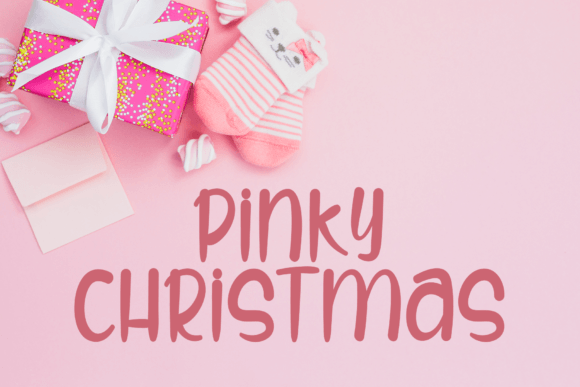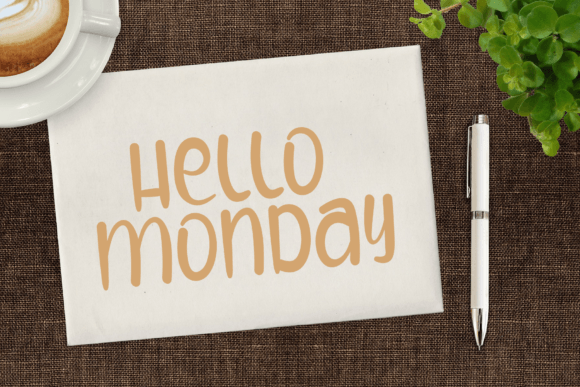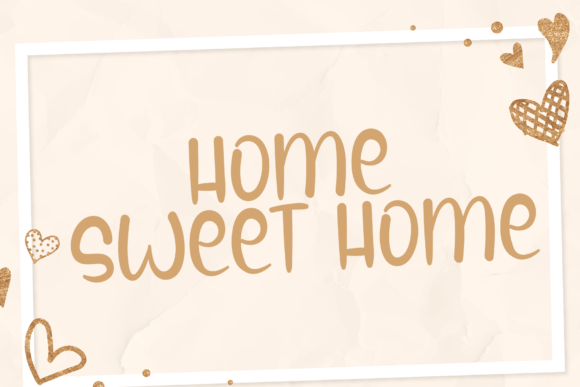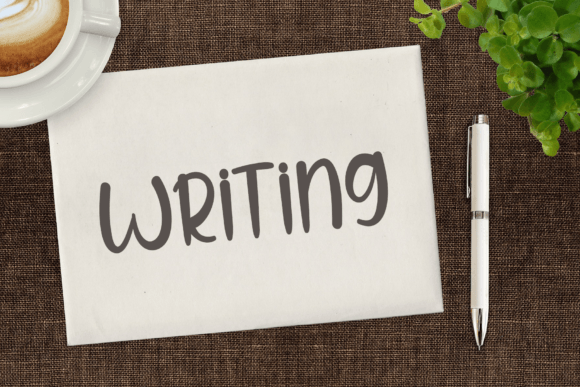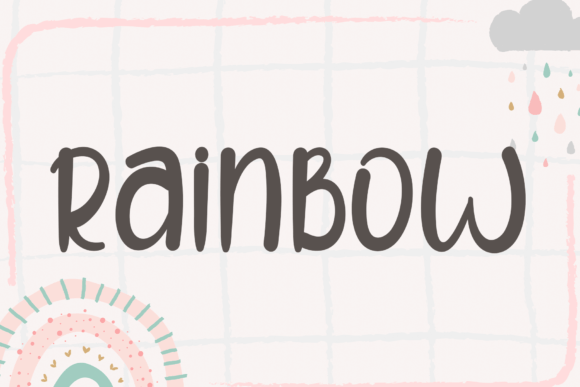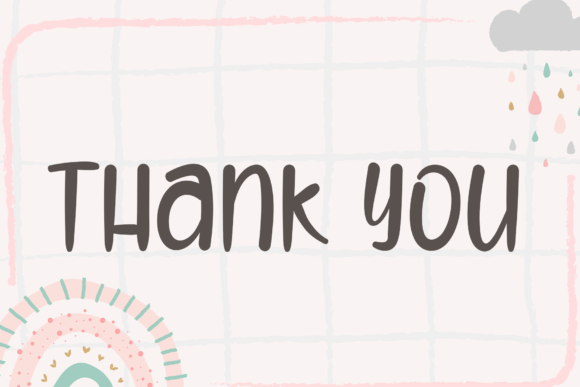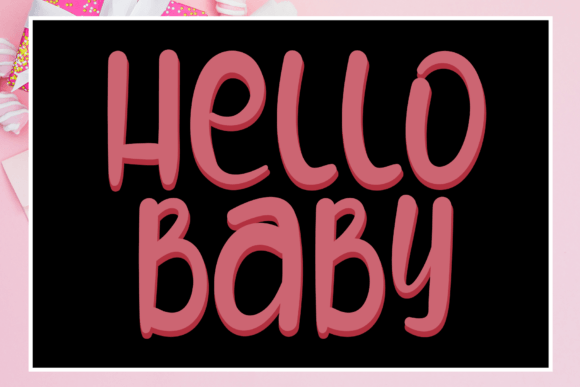
Introducing Hello Baby Font: The Sweetest Way to Celebrate New Beginnings
Are you looking for a font that captures the innocence and sweetness of newborn joy? Look no further than Hello Baby Font, a charming and endearing Script & Handwritten typeface that’s perfect for baby announcements, nursery decor, and heartfelt designs. With its gentle curves and tender letterforms, this font evokes a sense of warmth and affection that’s sure to make your projects stand out.
The Inspiration Behind Hello Baby Font
Hello Baby Font is designed to bring a touch of whimsy and love to your designs. The font’s creator was inspired by the magic of new beginnings and the joy of welcoming a new baby into the world. With Hello Baby Font, you can create beautiful and meaningful designs that celebrate the precious moments of life.
Key Features of Hello Baby Font
- Charming and endearing design: Hello Baby Font features gentle curves and tender letterforms that evoke a sense of warmth and affection.
- Script & Handwritten style: This font’s unique blend of script and handwritten elements creates a distinctive and personalized look.
- Perfect for baby-themed designs: Hello Baby Font is ideal for baby announcements, nursery decor, and other heartfelt designs.
Uses for Hello Baby Font
Hello Baby Font is a versatile typeface that can be used in a variety of design projects, including:
- Baby announcements: Create beautiful and personalized announcements to share the news of your new baby with friends and family.
- Nursery decor: Use Hello Baby Font to create adorable and whimsical nursery decor, such as wall art, onesies, and baby blankets.
- Heartfelt designs: Add a touch of warmth and affection to your designs with Hello Baby Font, perfect for projects that celebrate love, joy, and new beginnings.
Tips for Using Hello Baby Font
To get the most out of Hello Baby Font, here are a few tips to keep in mind:
- Pair with complementary fonts: Hello Baby Font pairs well with clean and simple fonts, such as sans-serif typefaces.
- Experiment with colors: Try pairing Hello Baby Font with soft, pastel colors to create a sweet and whimsical look.
- Add embellishments: Consider adding embellishments, such as flowers or hearts, to give your designs an extra touch of personality.
Hello Baby Font is a charming and endearing Script & Handwritten typeface that’s perfect for designers and crafters who want to add a touch of whimsy and love to their projects. With its gentle curves and tender letterforms, this font evokes a sense of warmth and affection that’s sure to make your designs stand out. Whether you’re creating baby announcements, nursery decor, or heartfelt designs, Hello Baby Font is the perfect choice for celebrating new beginnings.